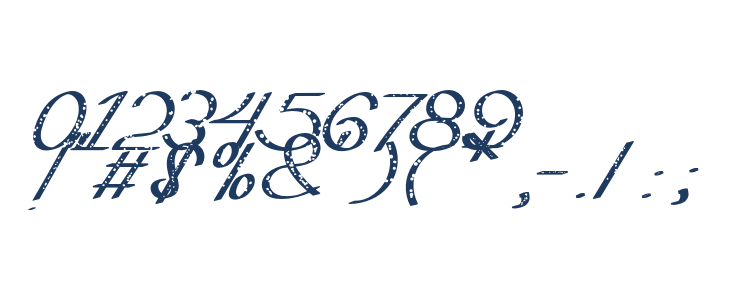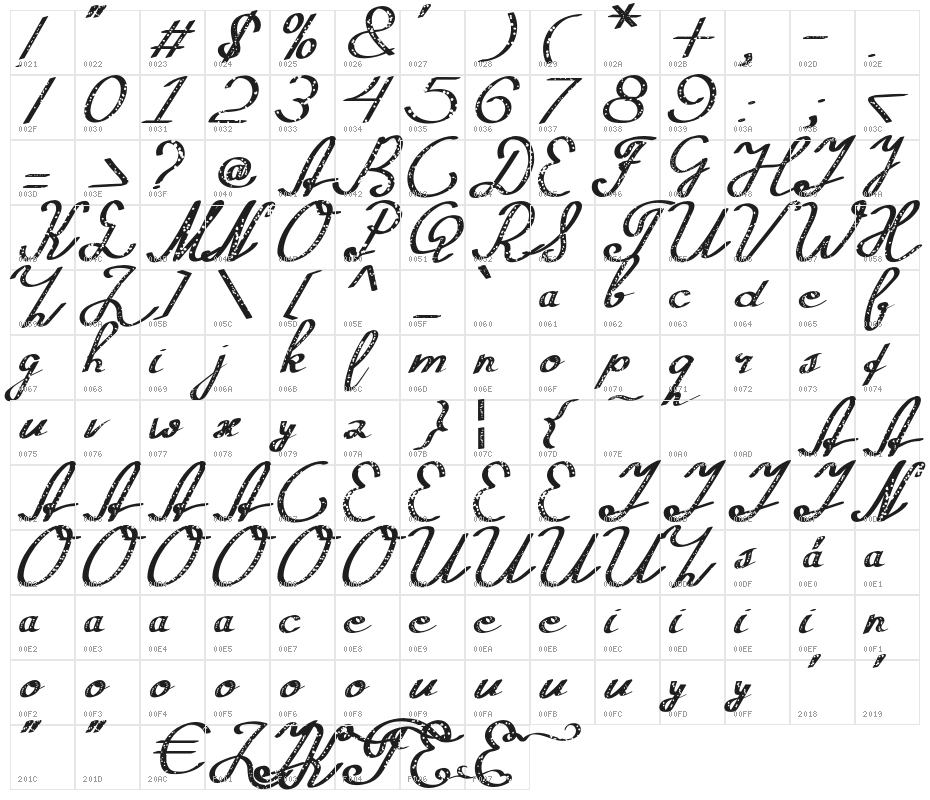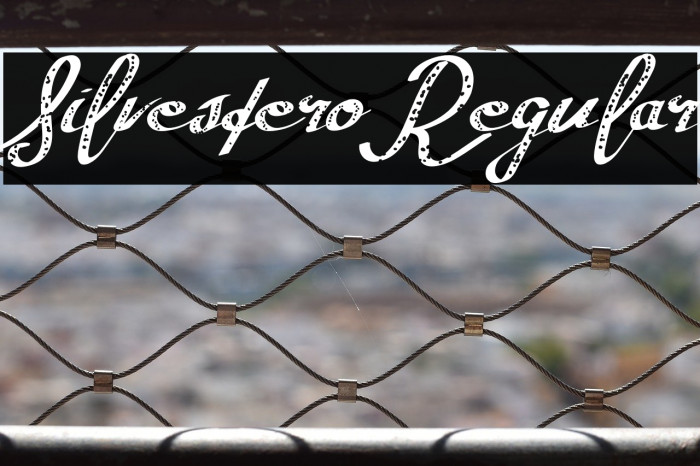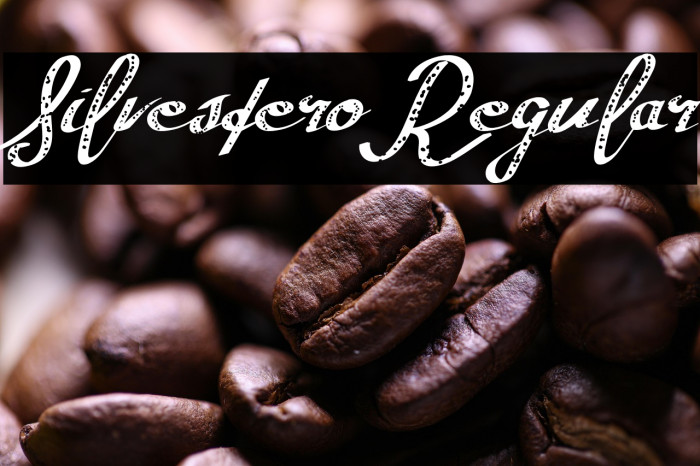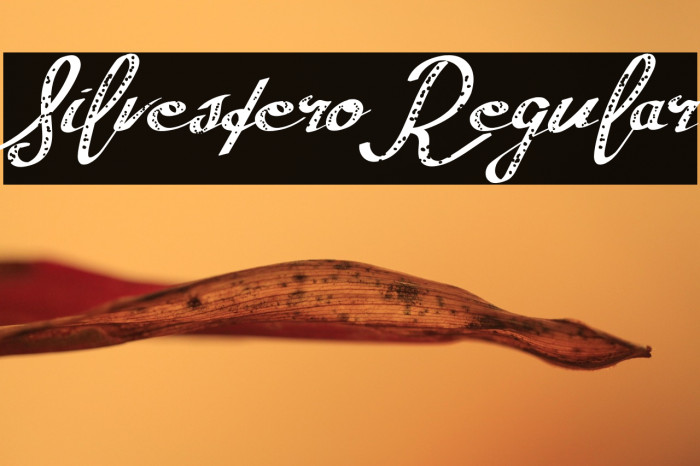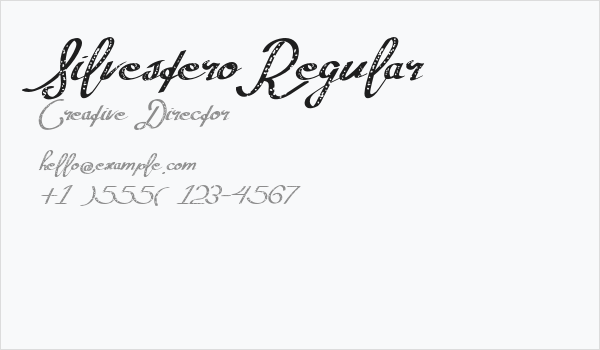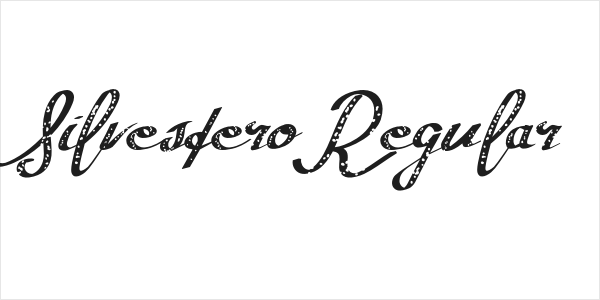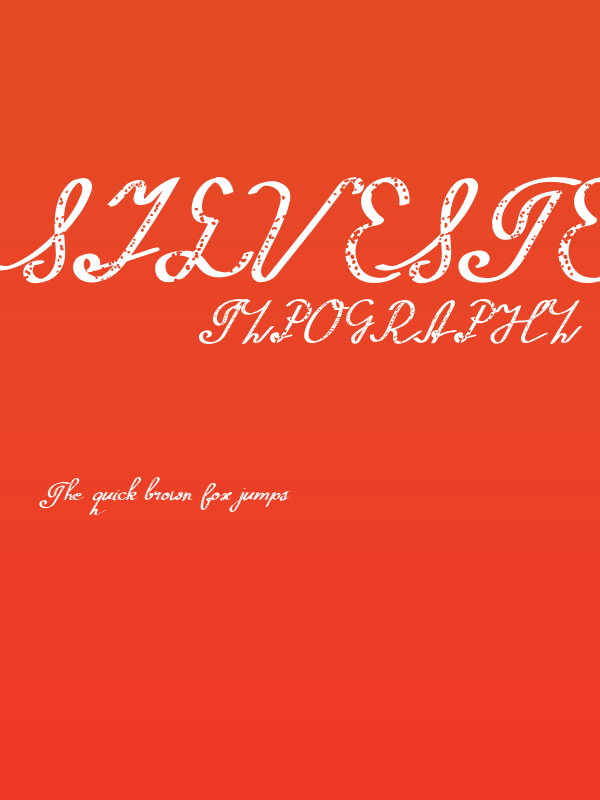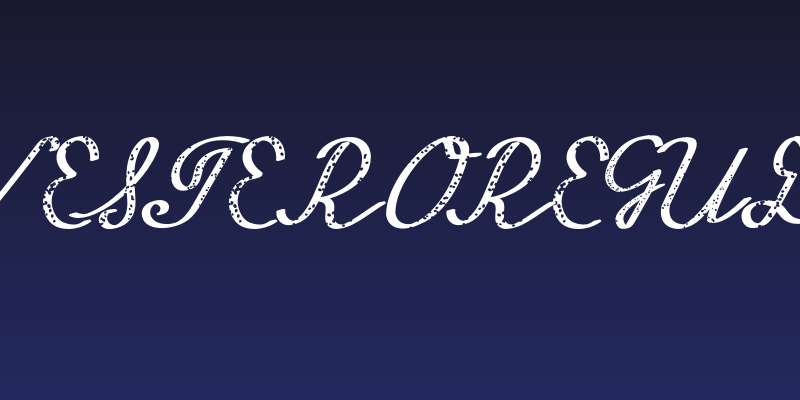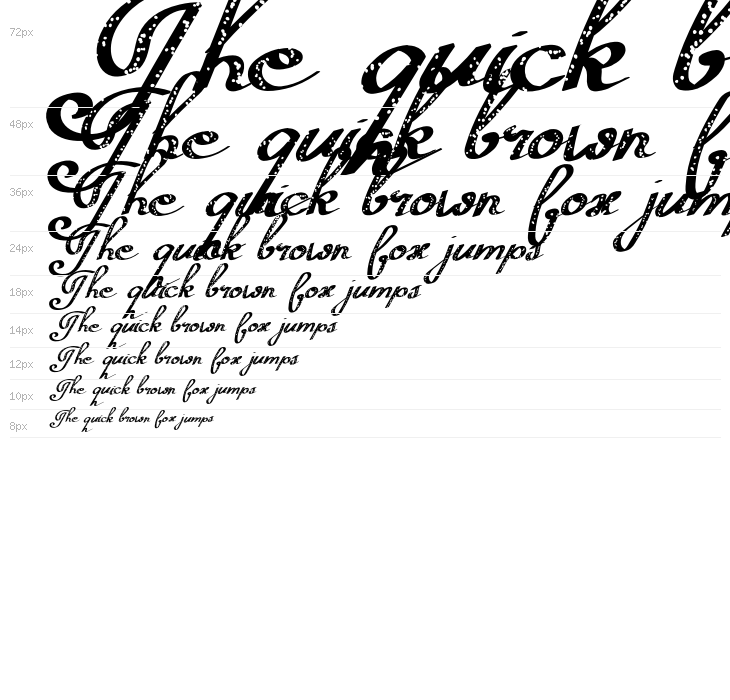
SilvesteroRegular Font
SilvesteroRegular Description
This font features a decorative and artistic script style with a distressed texture that gives it a vintage and worn appearance. The characters are elegantly connected, creating a fluid and dynamic look. The uppercase letters are bold and prominent, while the lowercase letters maintain a consistent flow. The numbers and special characters share the same distressed aesthetic, adding to the overall cohesive design. This font's unique style makes it suitable for creative projects that require a touch of elegance and nostalgia.
| Use Case | Logos, Invitations, Posters |
| Proposed Projects | Ideal for vintage-themed posters, wedding invitations, branding, and artistic projects that require a touch of elegance and nostalgia. |